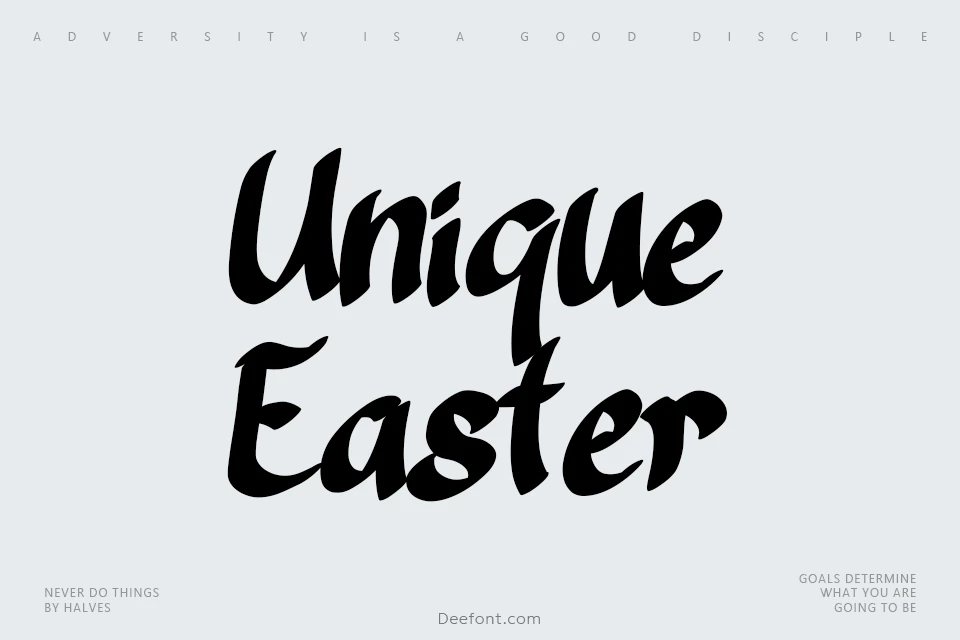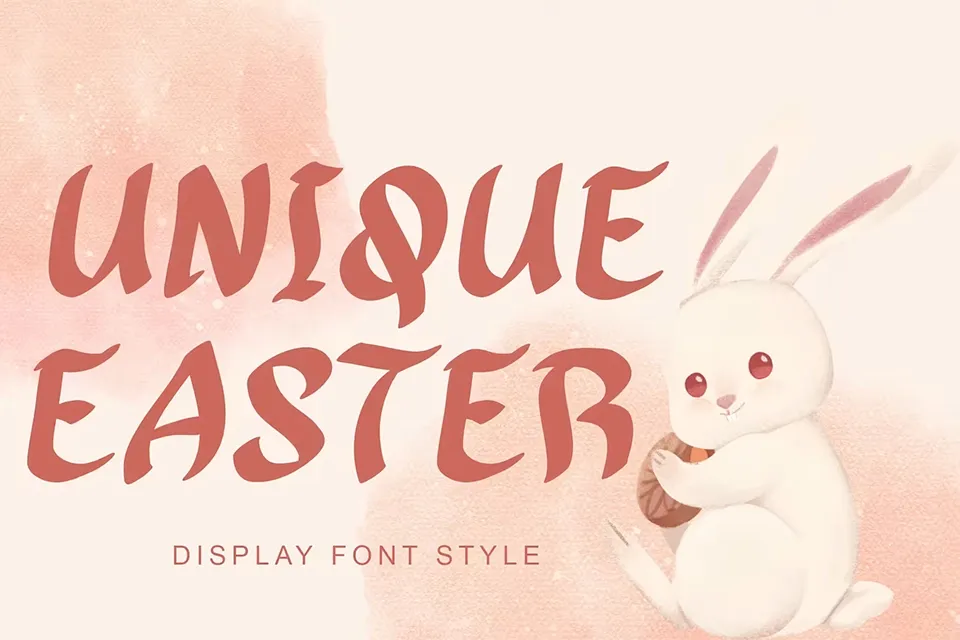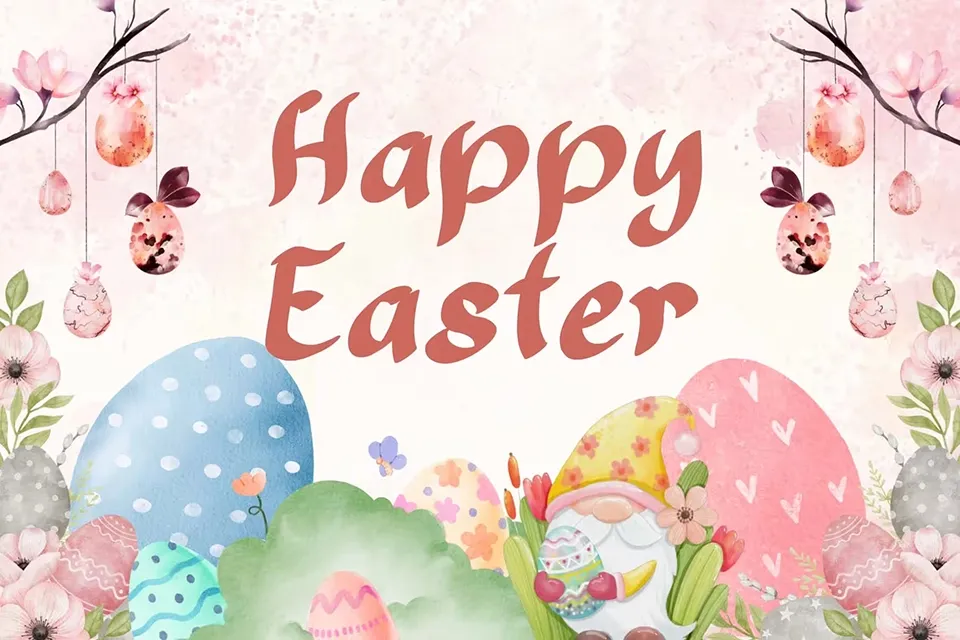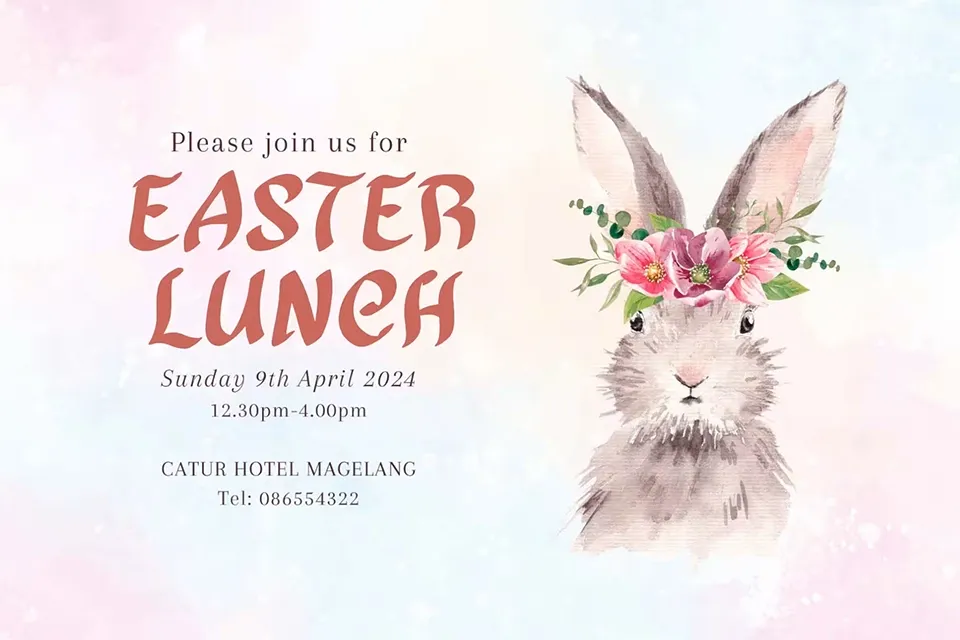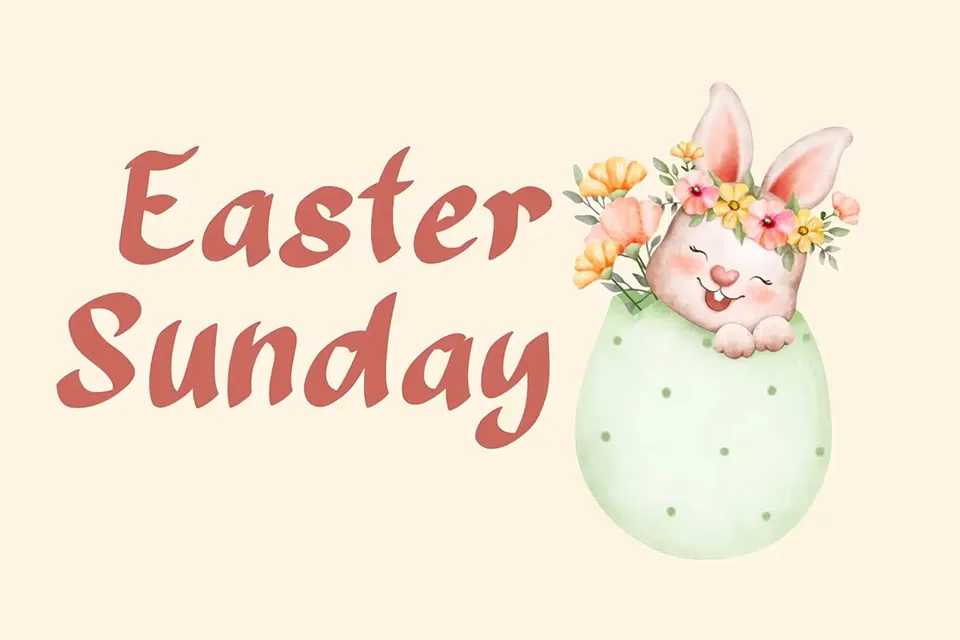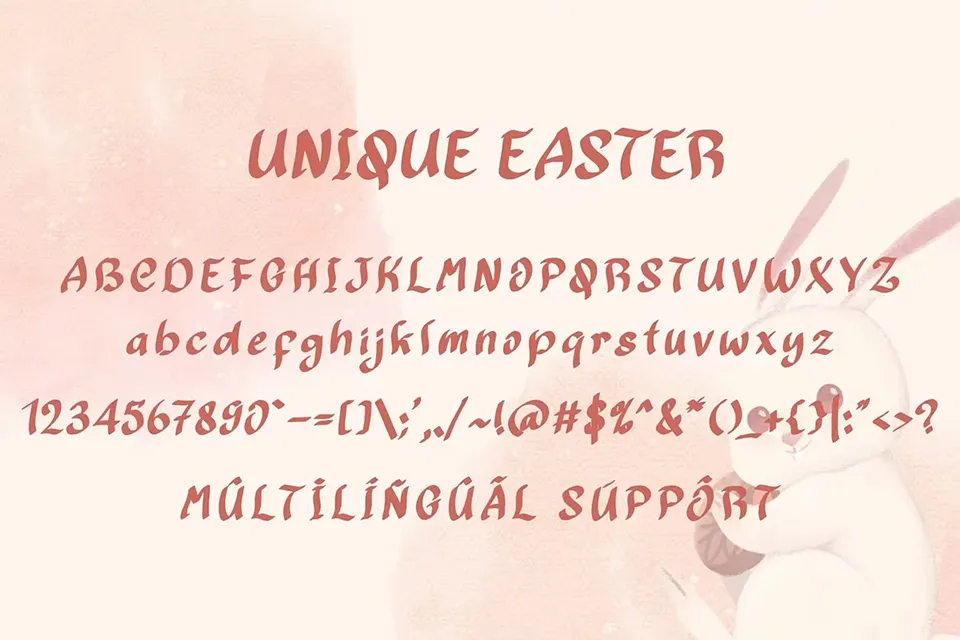
Unique Easter Font
Unique Easter Font is a playful and decorative display typeface designed specifically for Easter-themed projects. Featuring whimsical, hand-drawn letterforms and a festive spirit, this font is ideal for greeting cards, invitations, posters, and creative branding that needs a touch of seasonal charm.